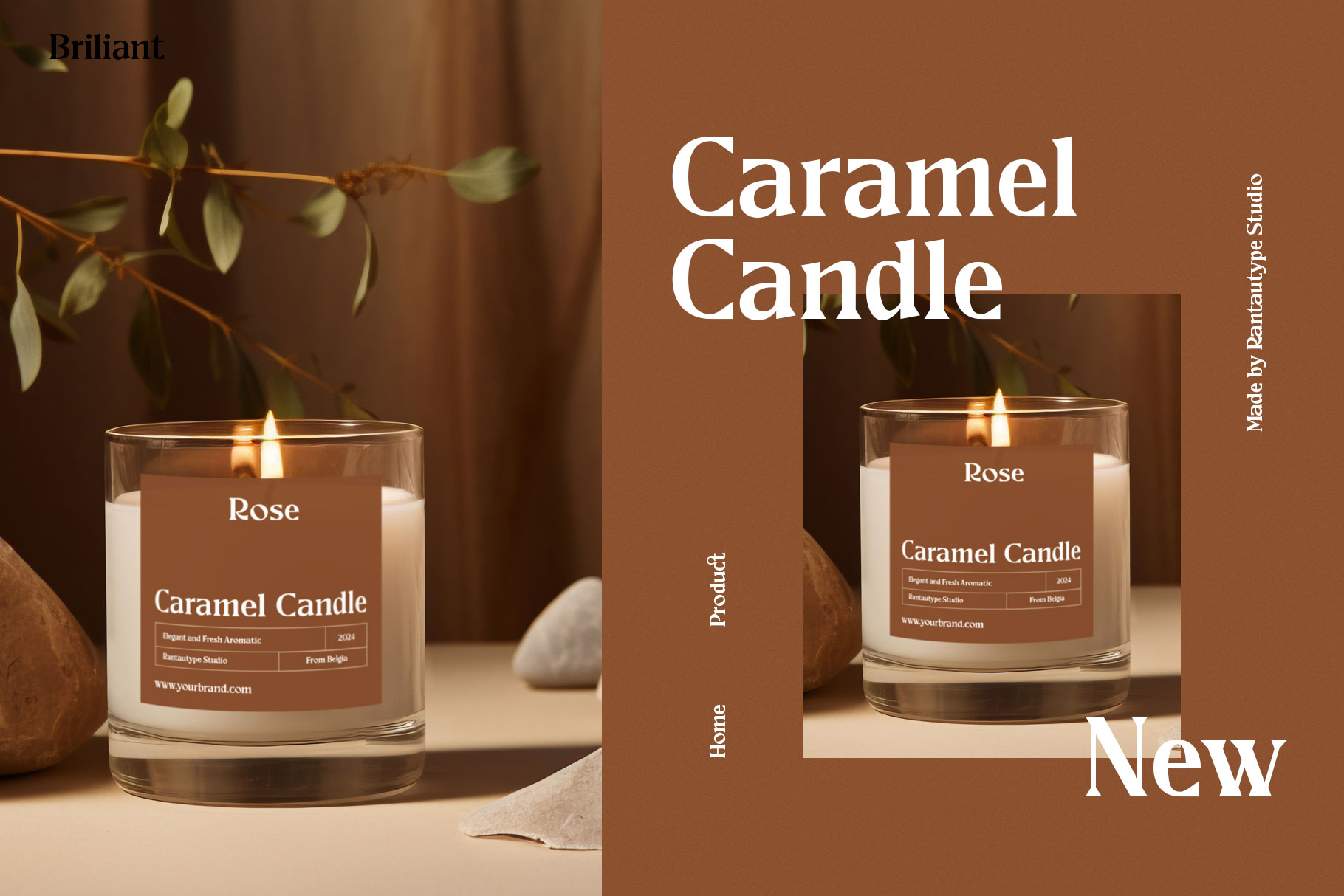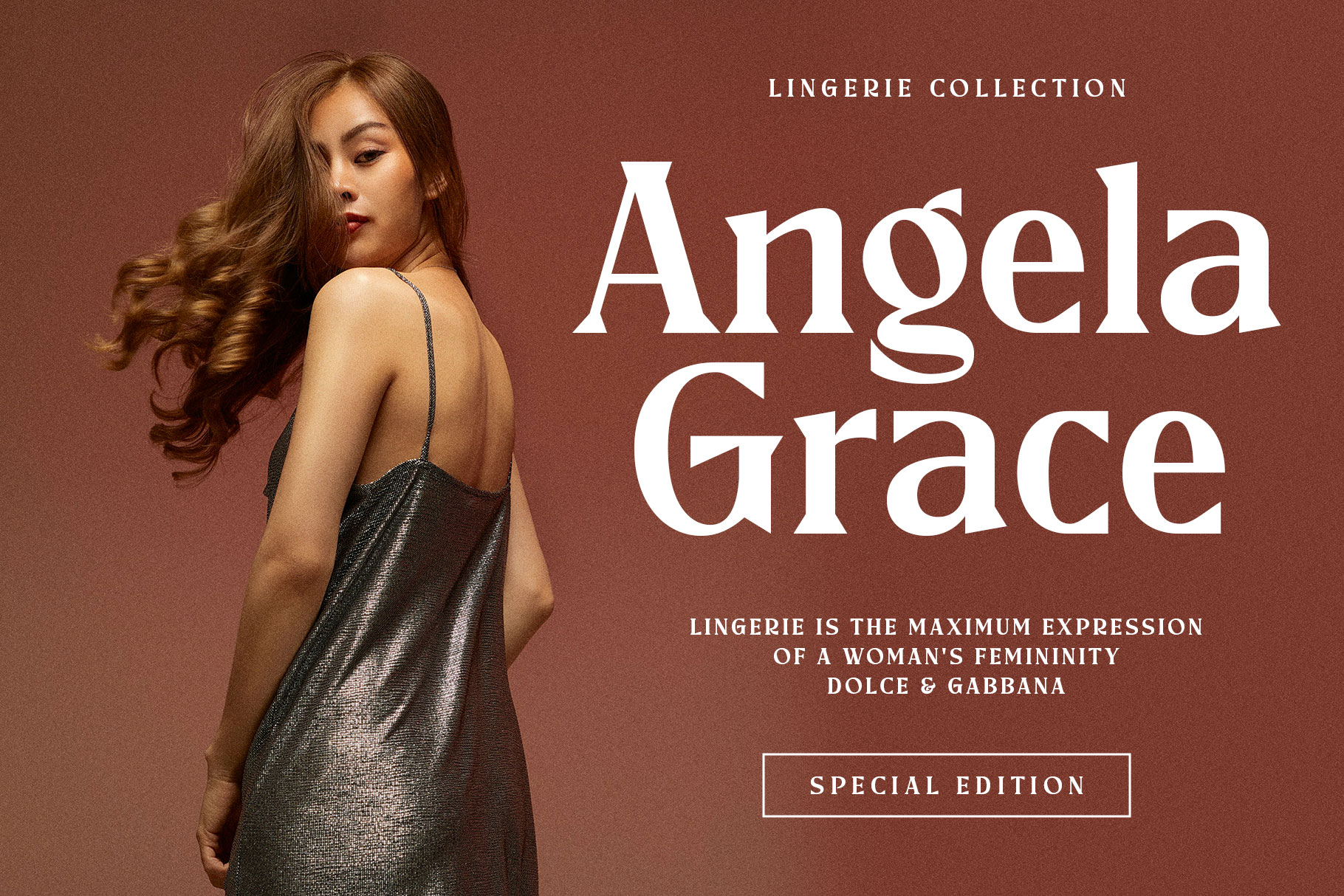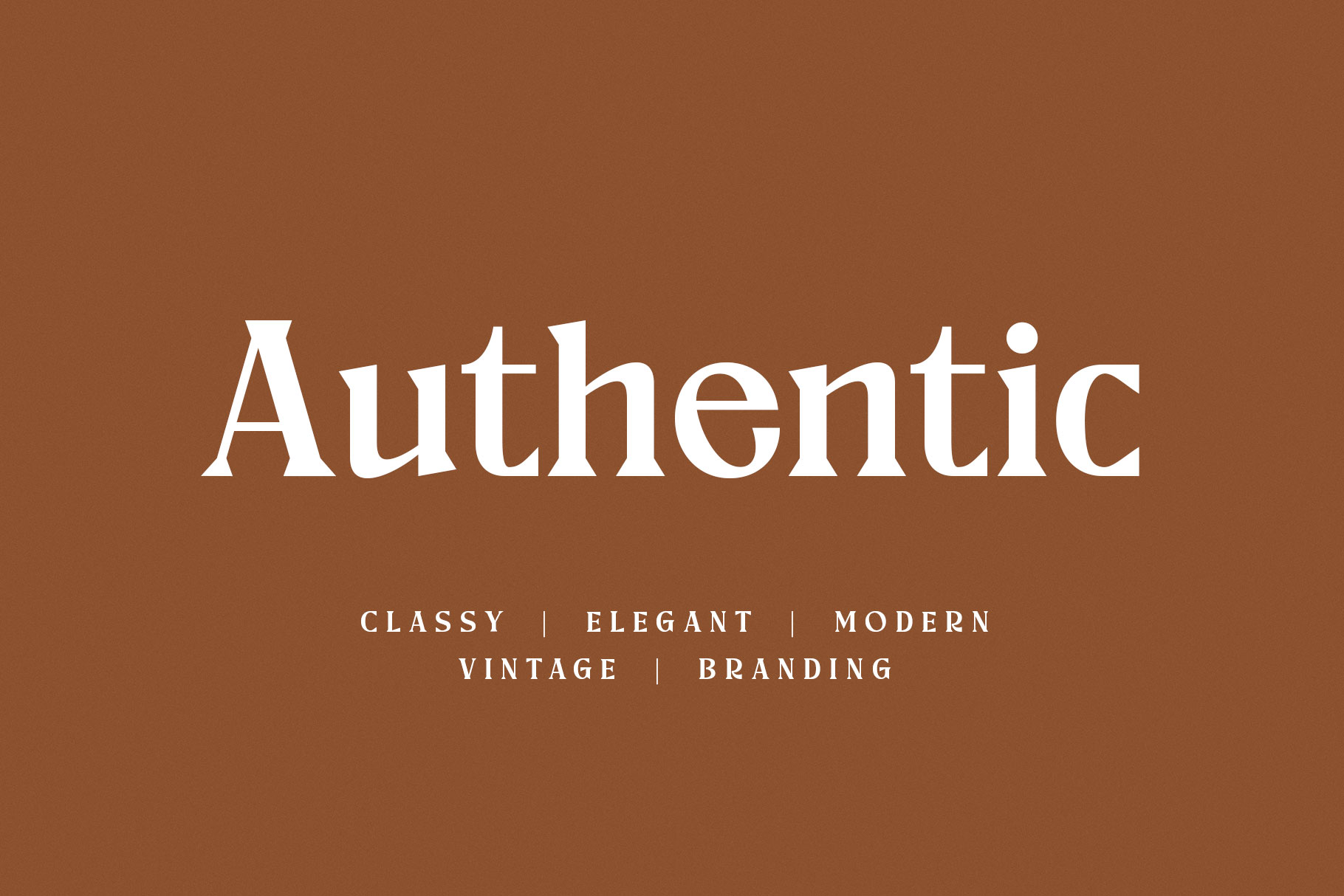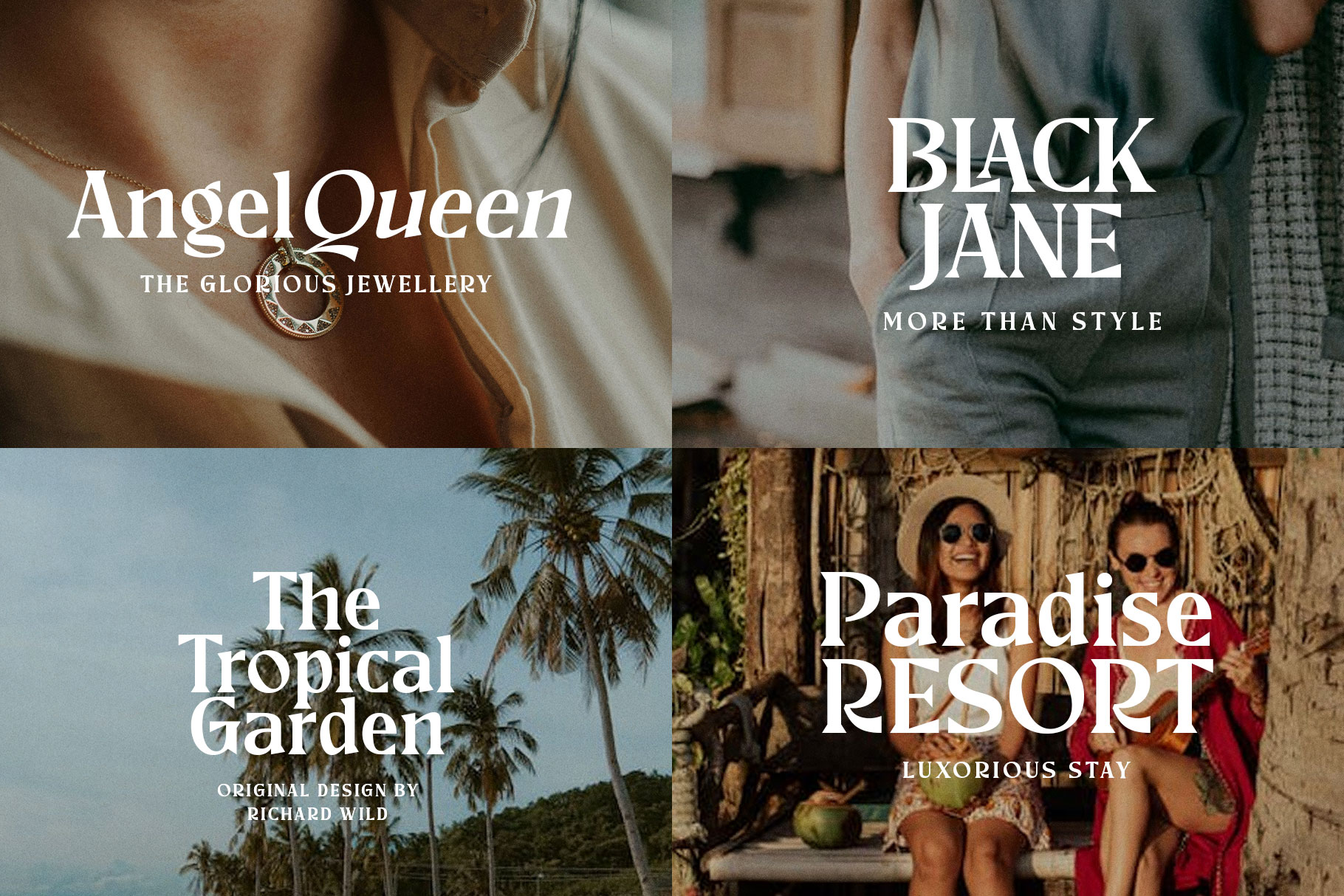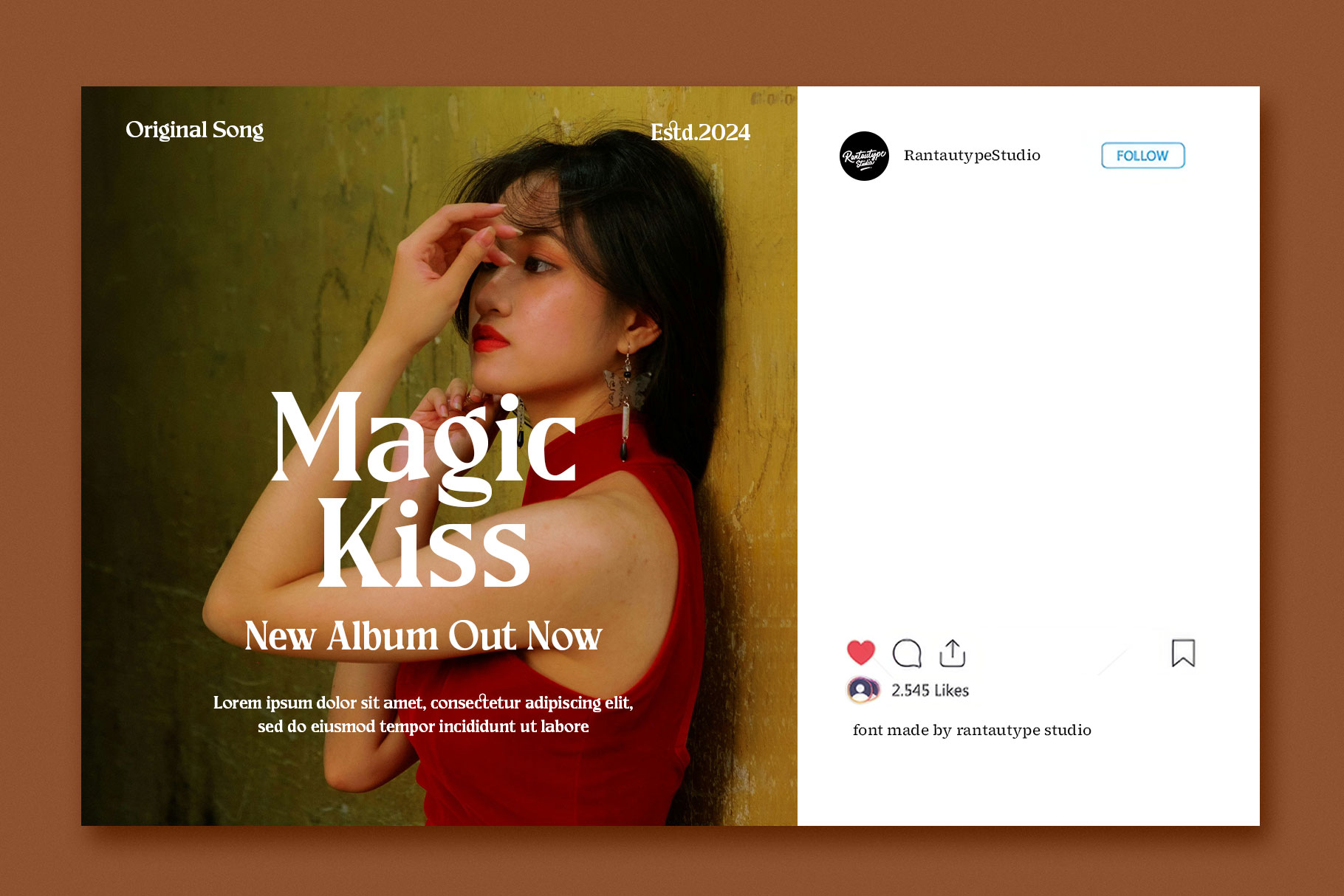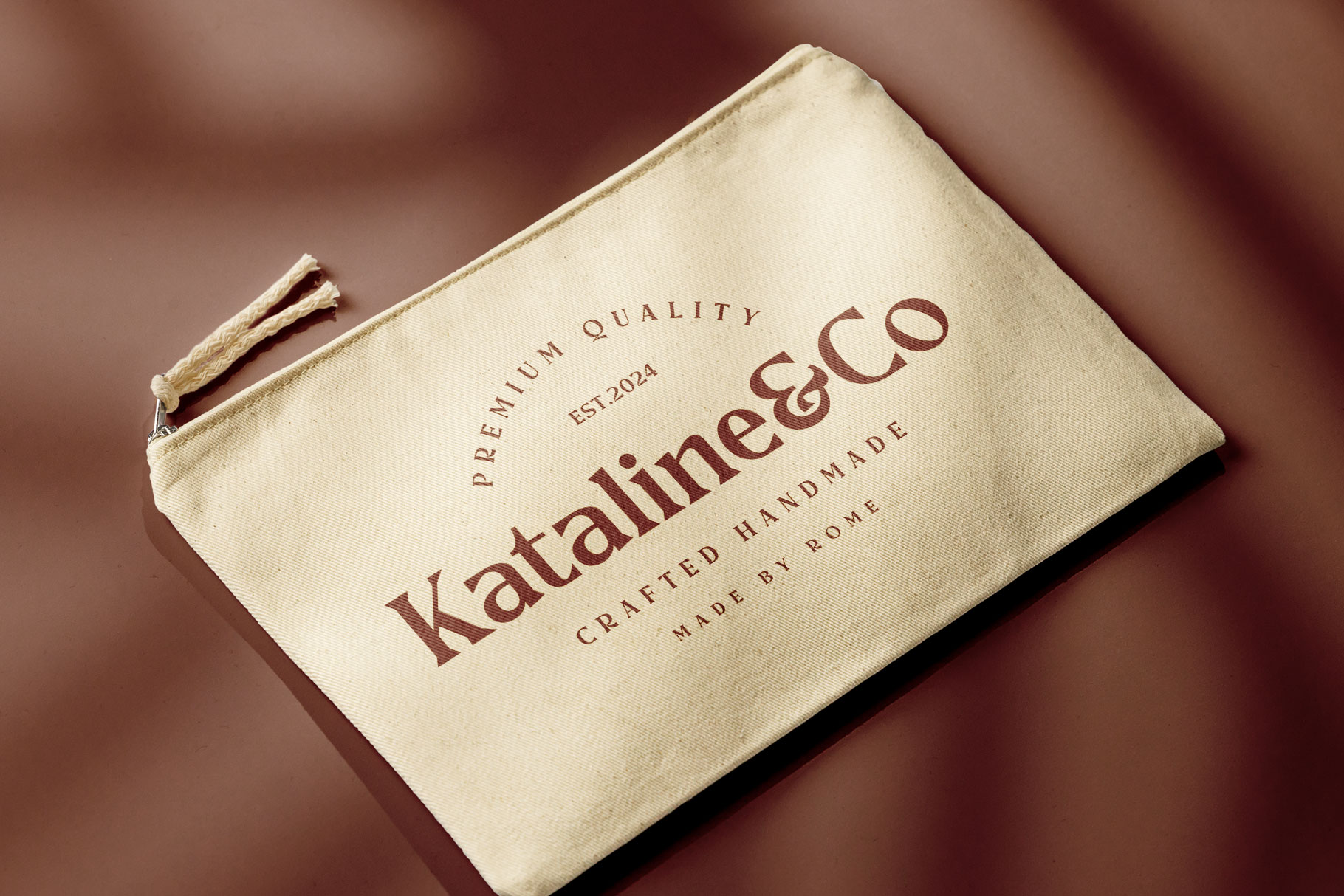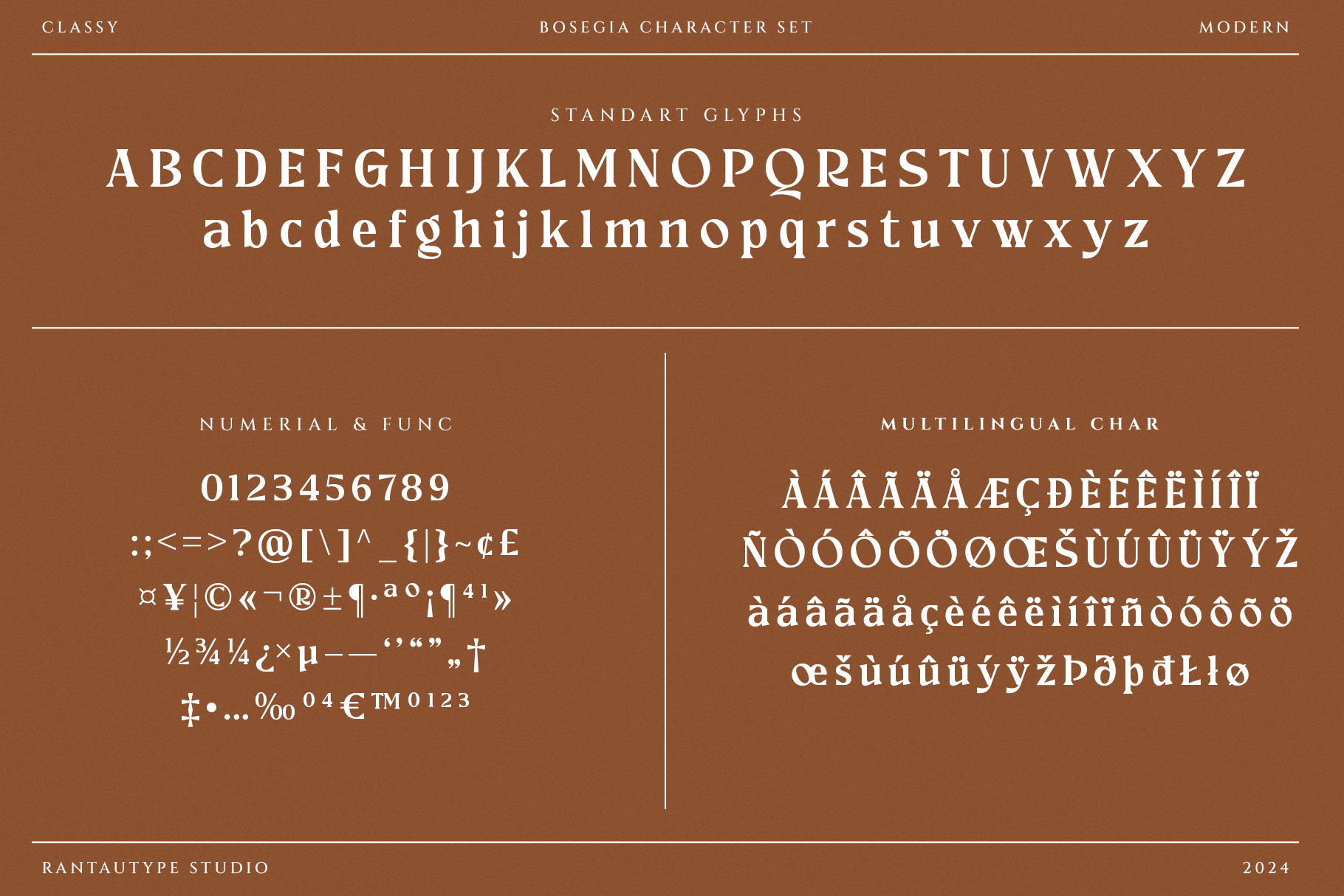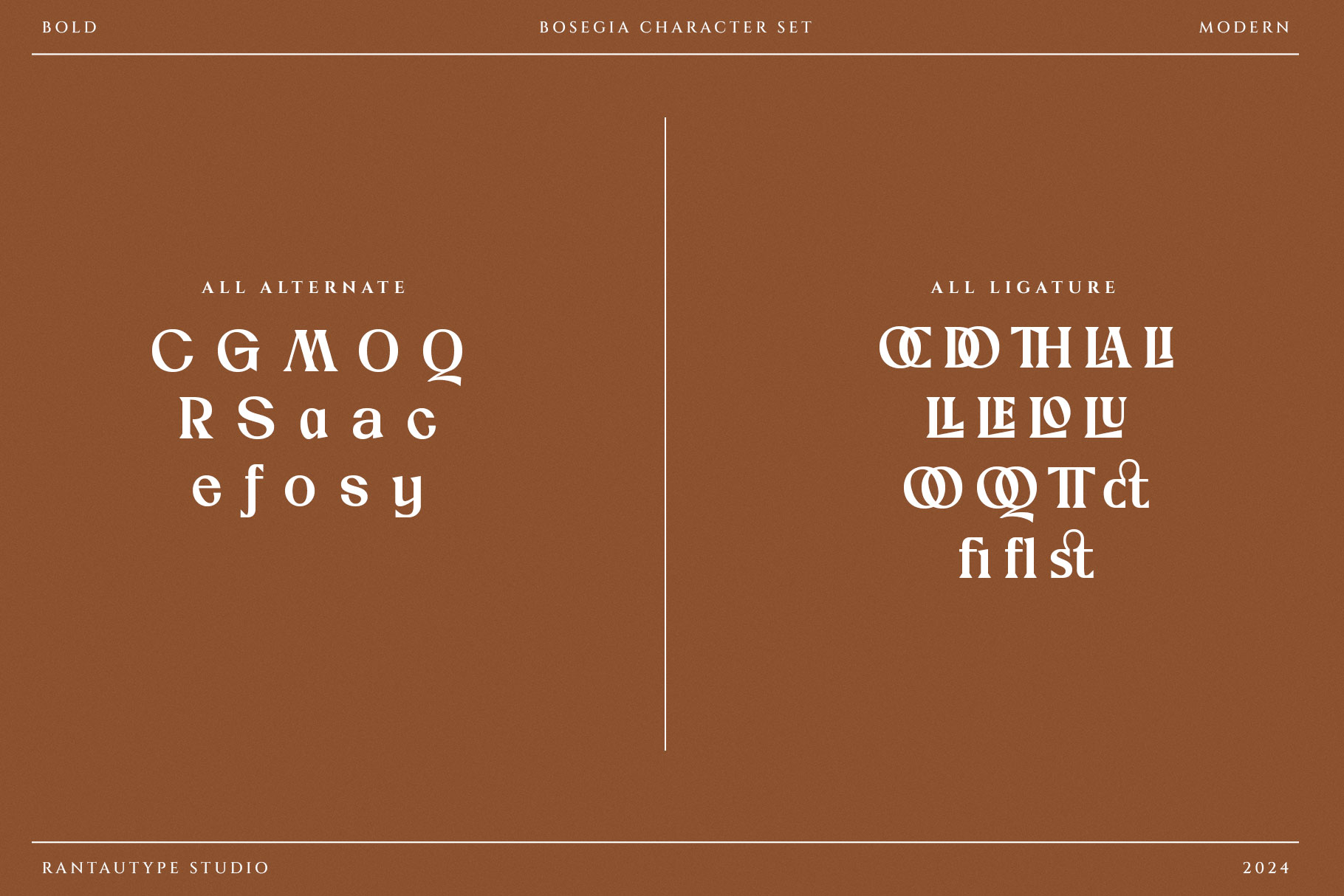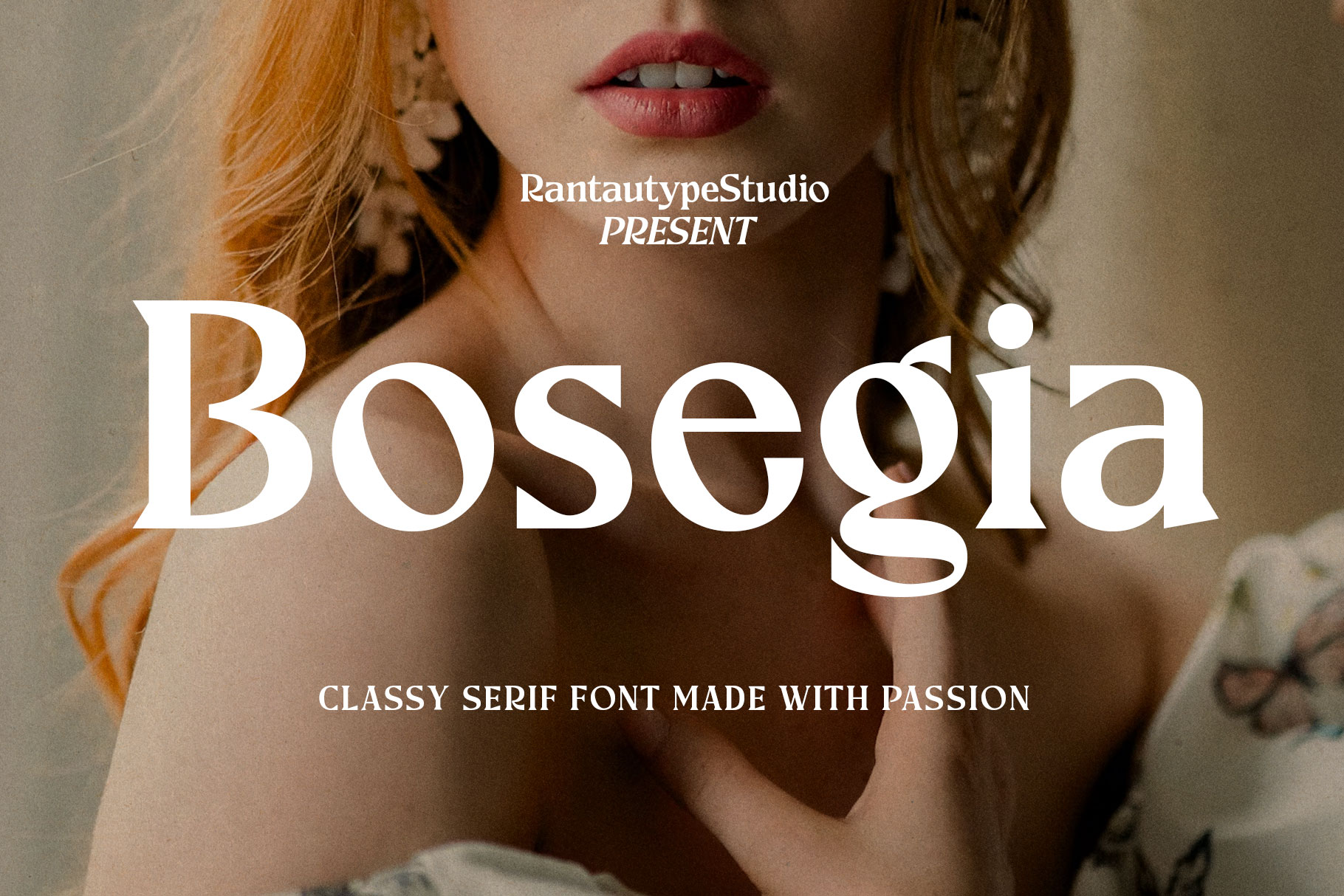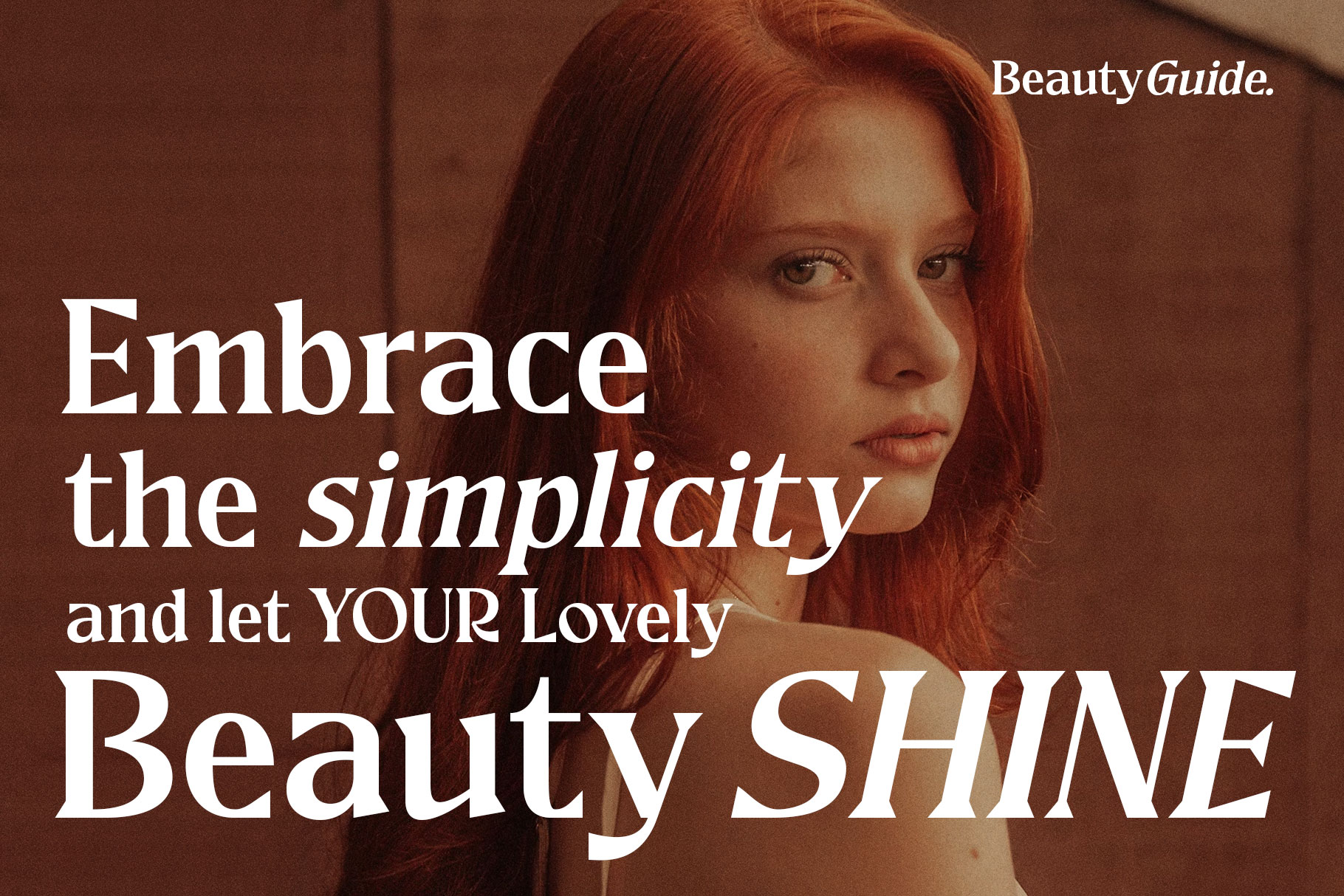
Bosegia Classy Serif Font
Bosegia is classy serif font embrace grace and feminity. Bosegia come to make your brand stand out with the harmony every character. Bosegia is a beautiful choice for any creative endeavor, creating elegant, modern, chic, lifestyle design such as logotype, title, cover, branding, invitations, wedding designs, display and magazine, social media posts, advertisements, printed quotes, product packaging, corporate brand, product designs, labels, photography, watermarks, special events and any other project with classy touch.
Fonts include Multilingual Character for: Afrikaans, Albanian, Asu, Basque, Bemba, Bena, Breton, Chiga, Cornish, Dutch, English, Estonian, Filipino, Finnish, Friulian, Galician, Gusii, Indonesian, Irish, Italian, Kabuverdianu, Kalenjin, Kinyarwanda, Luo, Luxembourgish, Luyia, Machame, North, Oromo, Portuguese, Quechua, Romansh, Rombo, Rundi, Rwa, Samburu, Sango, Sangu, Scottish, Gaelic, Sena, Shambala, Shona, Soga, Somali, Spanish, Swahili, Swedish, Swiss, German.